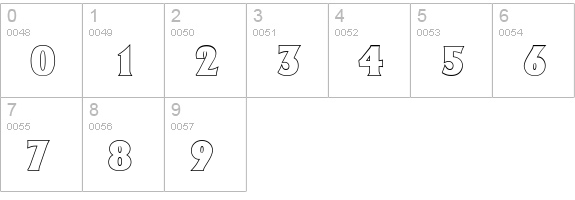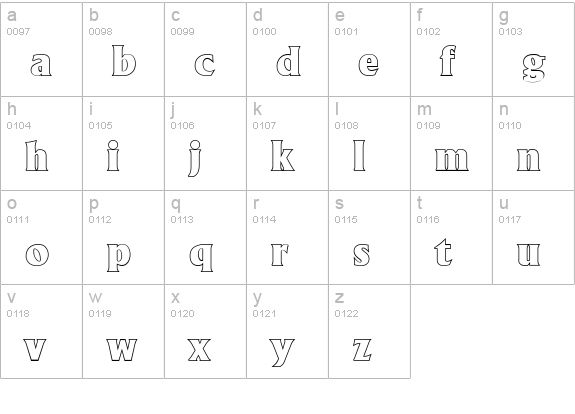
AdelonOutline-Heavy-Regular is a heavy, high-impact variant in the AdelonOutline typeface family \xE2\x80\x94 well suited to high-impact headlines, posters, and display advertising.
AdelonOutline-Heavy-Regular is a striking and bold font that commands attention with its strong and impactful presence. This font exudes a sense of power and modernity, making it an ideal choice for headlines, titles, and other prominent text elements. The heavy weight of the font adds a sense of gravitas and strength to any design it is used in. What sets AdelonOutline-Heavy-Regular apart is not just its bold appearance, but also its versatility. Despite its strong and commanding presence, this font is surprisingly adaptable and can be used in a variety of design contexts. Whether you're creating a sleek and contemporary website, a dynamic poster, or a striking logo, AdelonOutline-Heavy-Regular will help your text stand out and make a statement. Best of all, AdelonOutline-Heavy-Regular is available for free download at FontsMarket.com. This means that you can easily add this powerful font to your design arsenal without breaking the bank. So why wait? Download AdelonOutline-Heavy-Regular today and take your designs to the next level with its bold and impactful style.